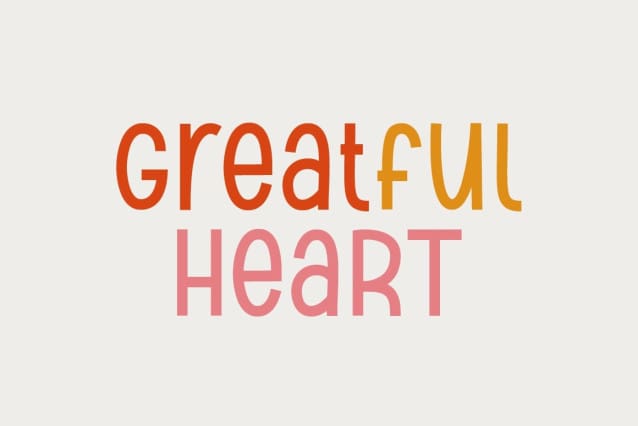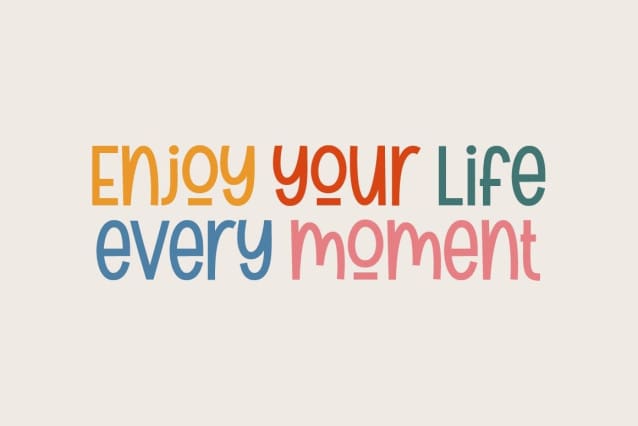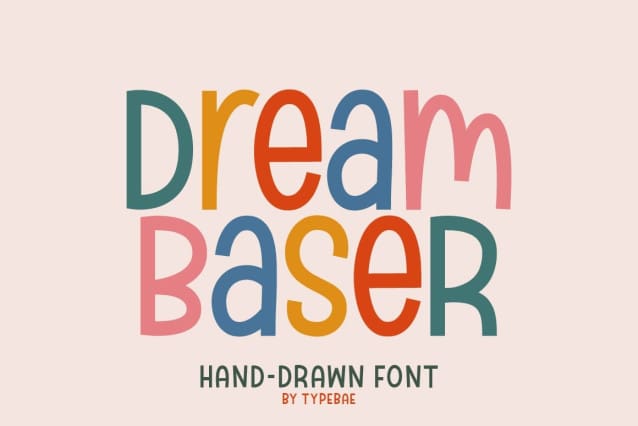
Dream Baser Font
Dream Baser Font is a playful and adorable hand-drawn display font. You’ll enjoy the effects when you use it in your creative endeavors!